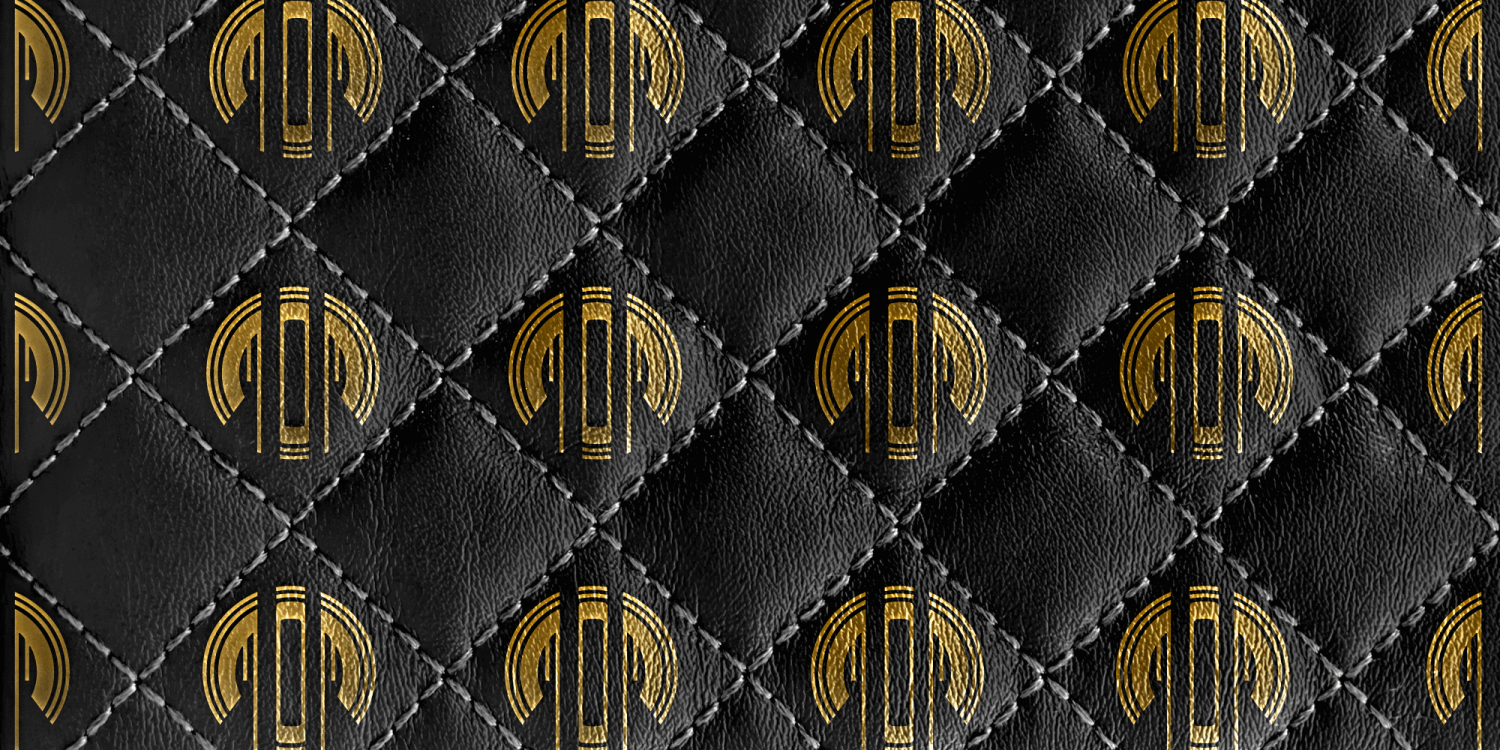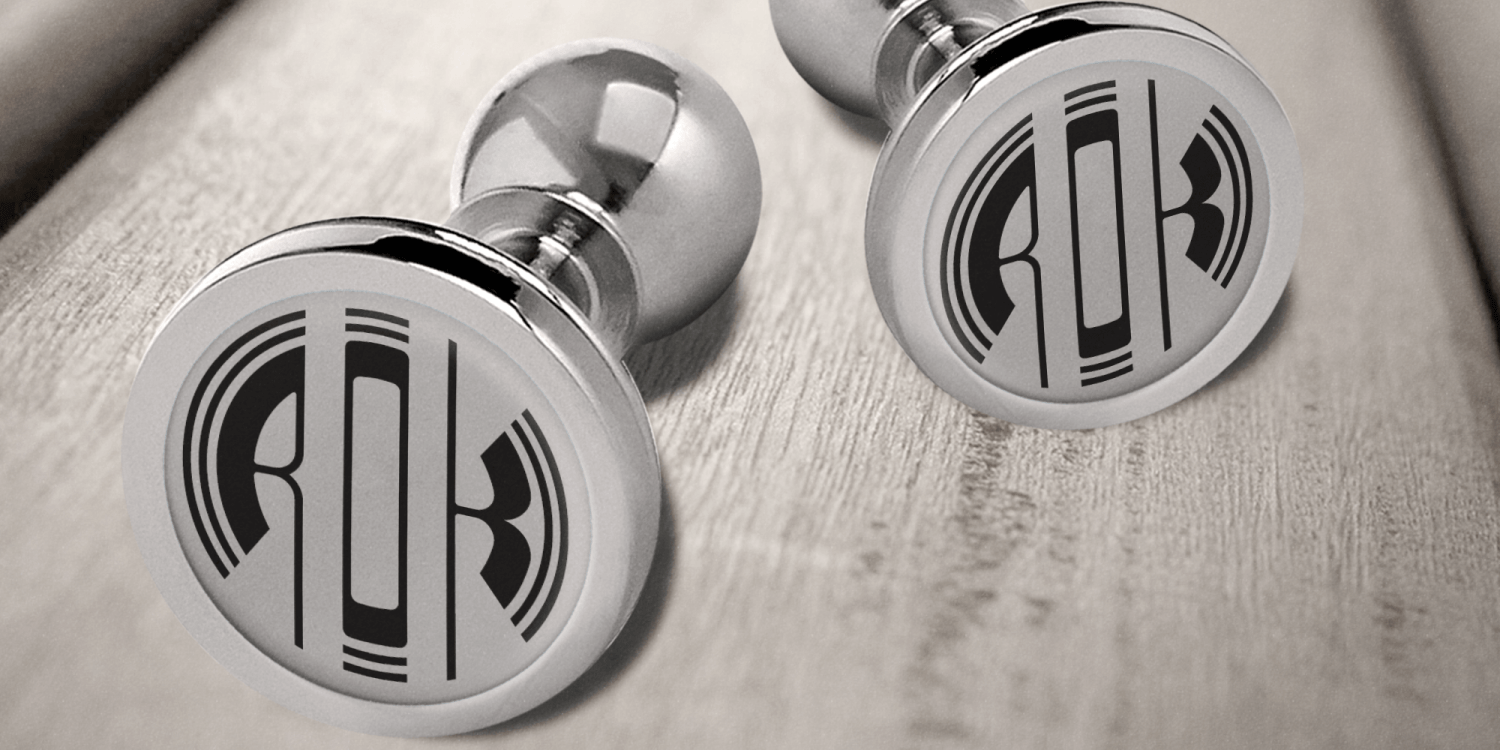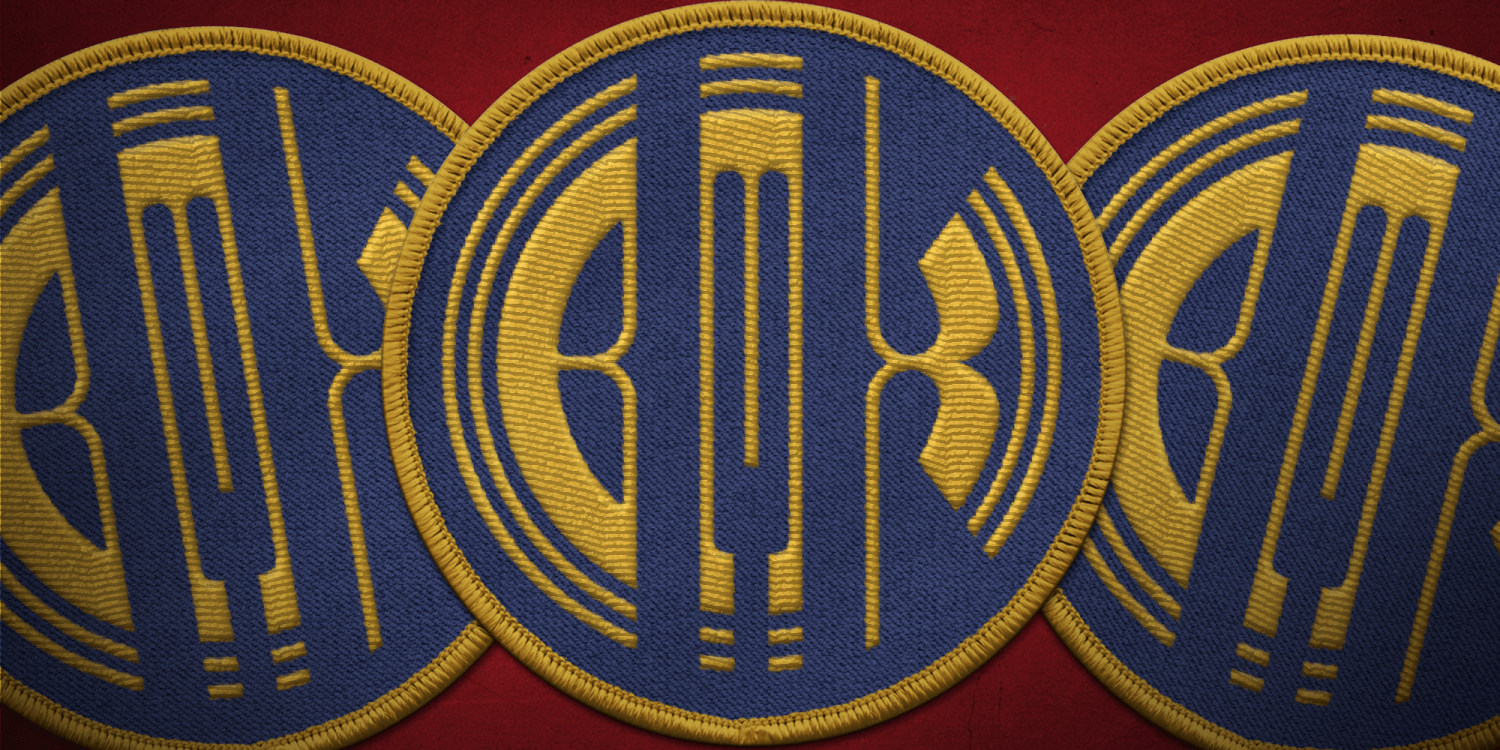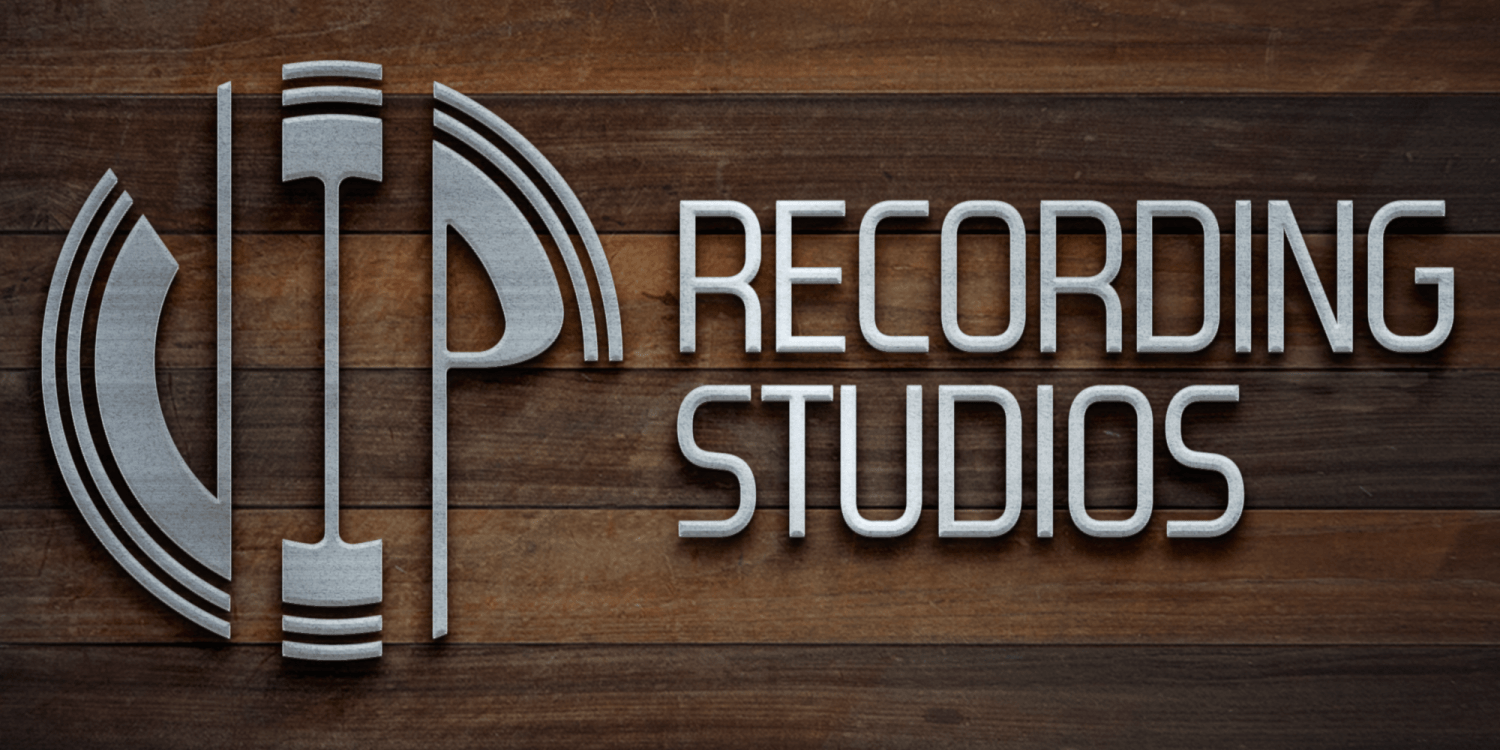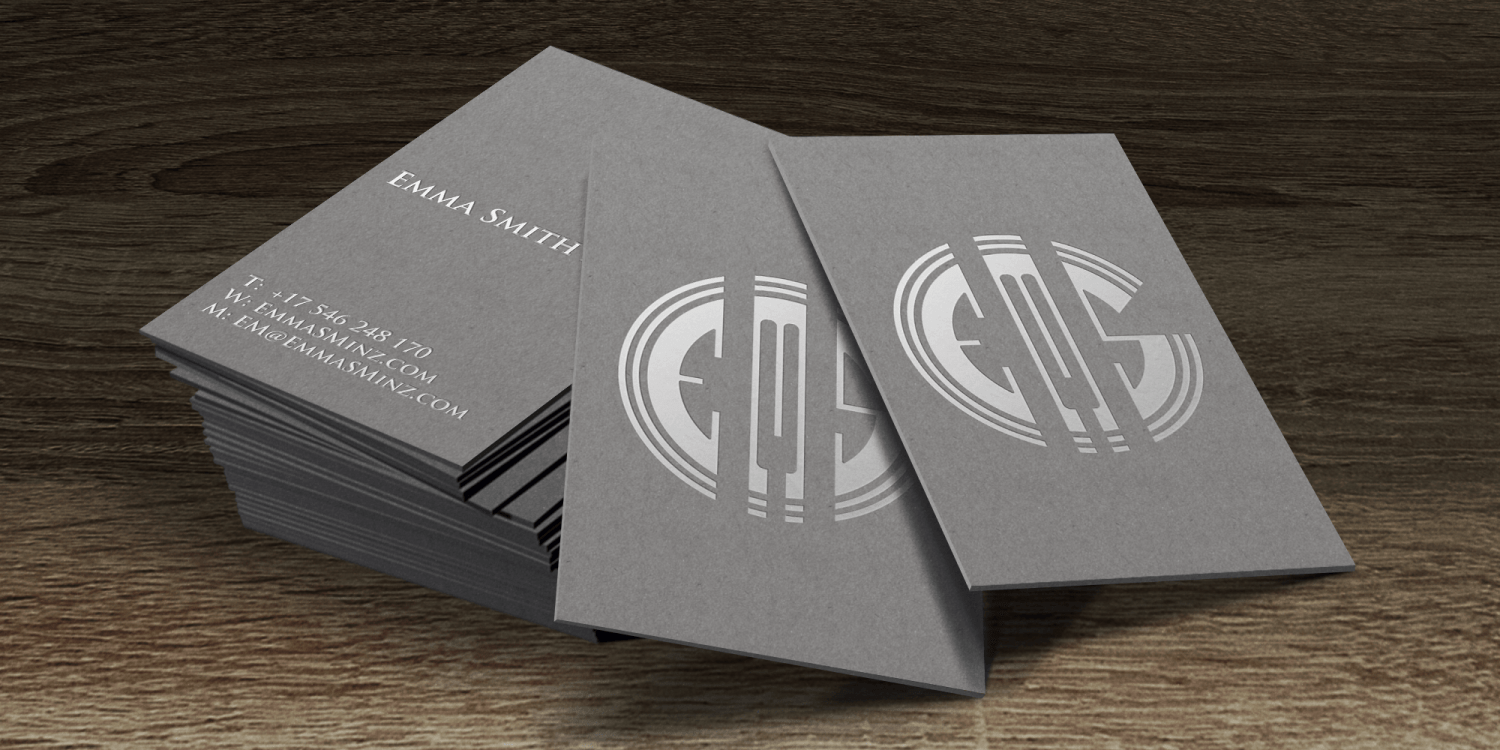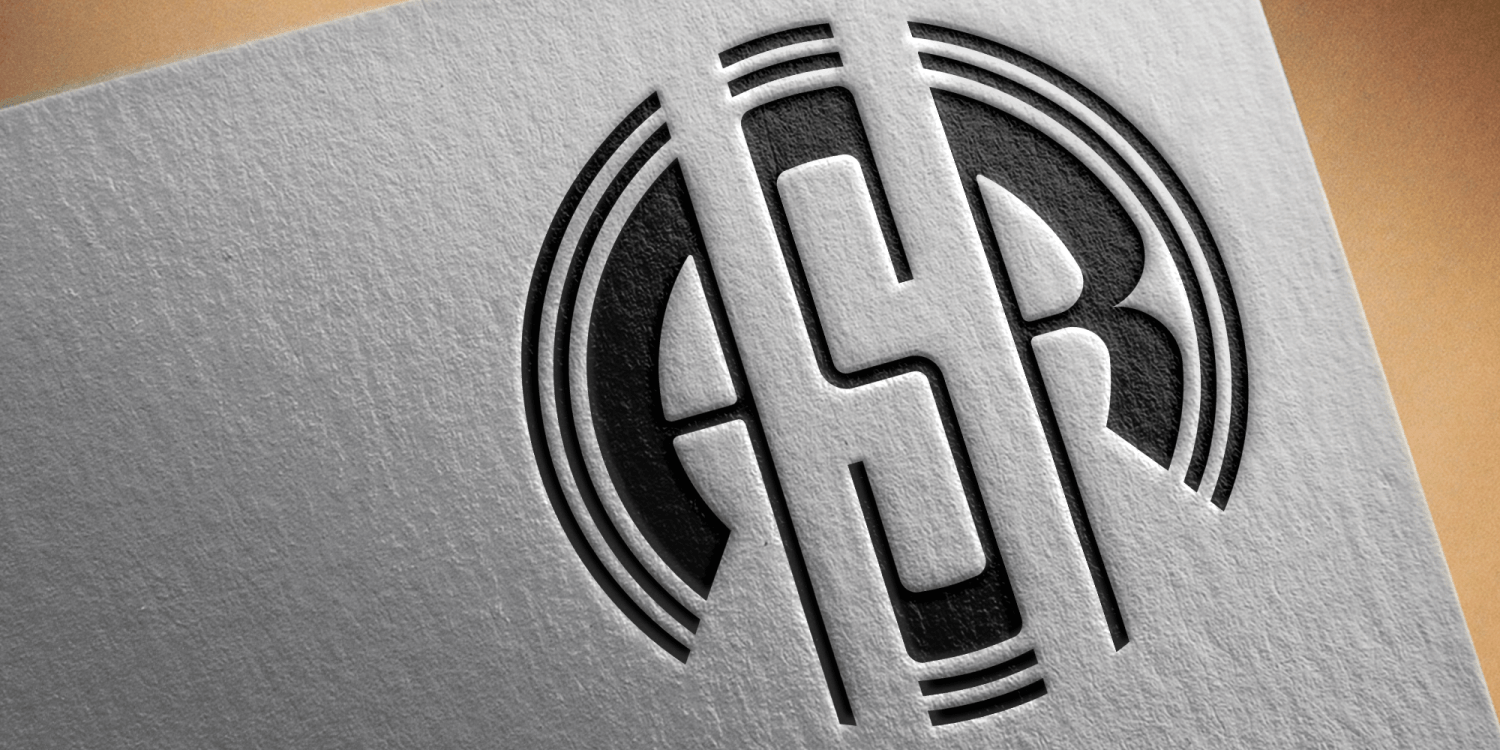
About MFC Phonograph Monogram
The inspiration source for MFC Phonograph Monogram is a vintage monogram specimen named ?Kent? showing only a CBA sample. It was a style I could find no other reference for, but was desperate to recreate this record like styling of monogram. Finally,…